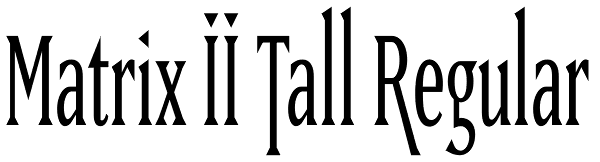
Matrix II
Matrix II is a complete reworking of the original Matrix type family which was designed by Zuzana Licko in 1986. The redesign, which started in January 2007, was initiated by the need to create an OpenType version of Matrix. With the hood open, so...